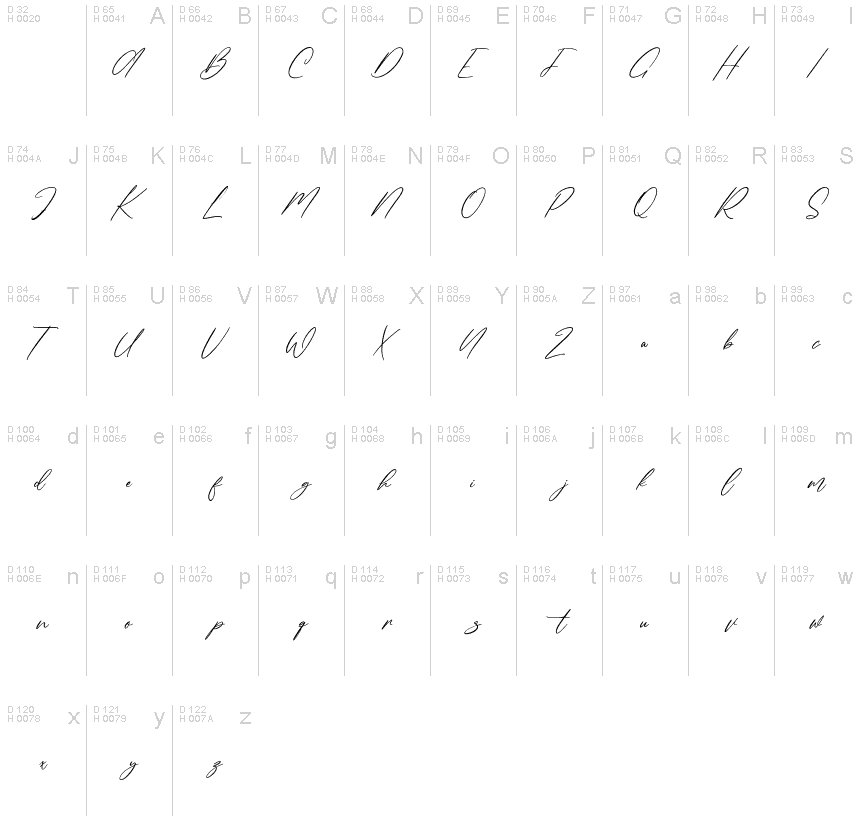
Brownfauks Free Regular
Brownfauks, the exquisite handwritten signature font by Maulana Creative, is a stunning addition to any project that requires elegance and sophistication. With its light weight and flowing strokes, Brownfauks lends itself perfectly to invitations, greeting cards, and other stationery designs. It's also an ideal choice for branding projects such as logos, packaging design, and social media graphics that require a personal touch. Whether you're creating a wedding invitation or designing a new brand identity for a client, Brownfauks' distinctive style will add that extra touch of luxury and refinement to your work.